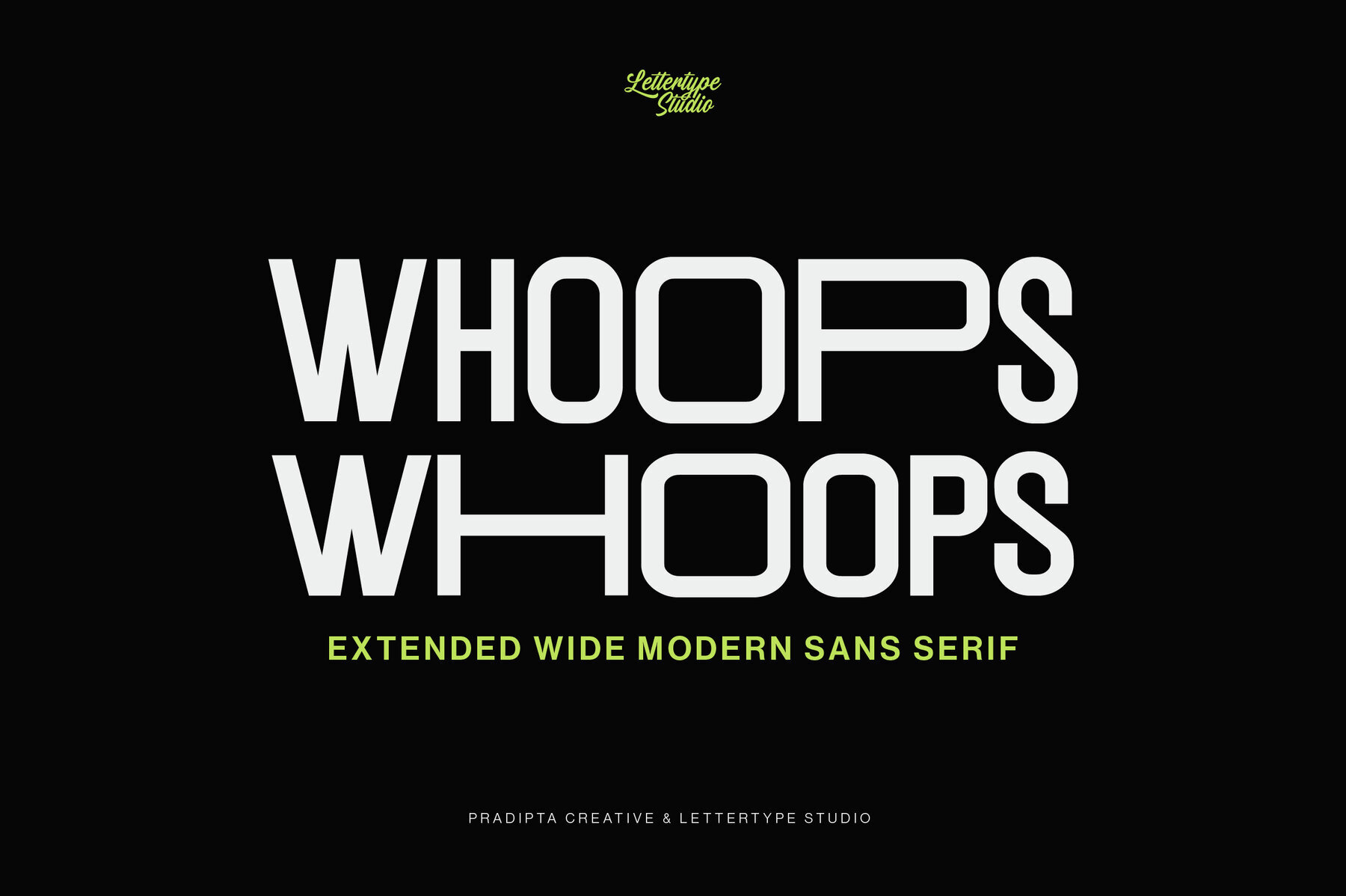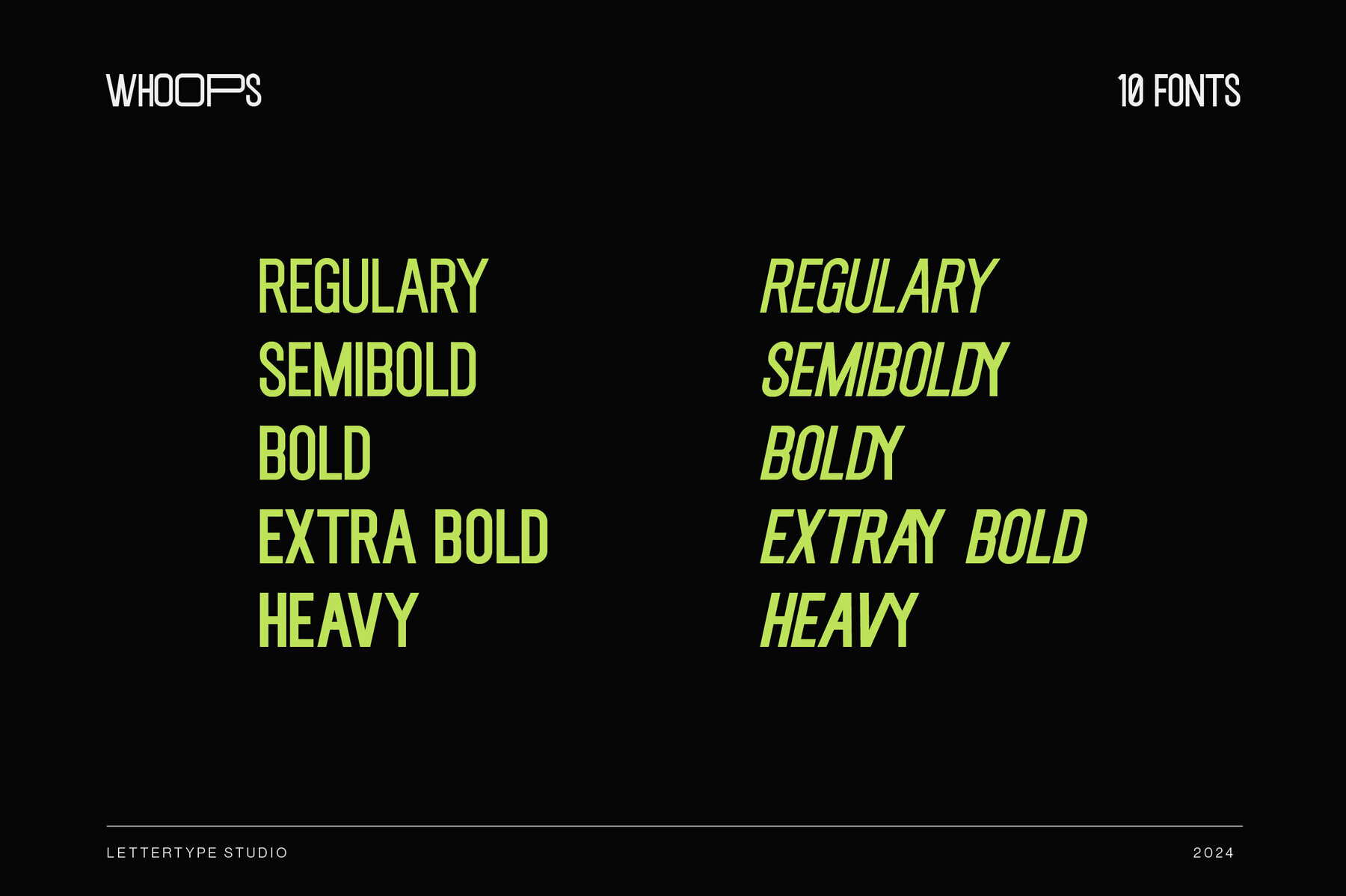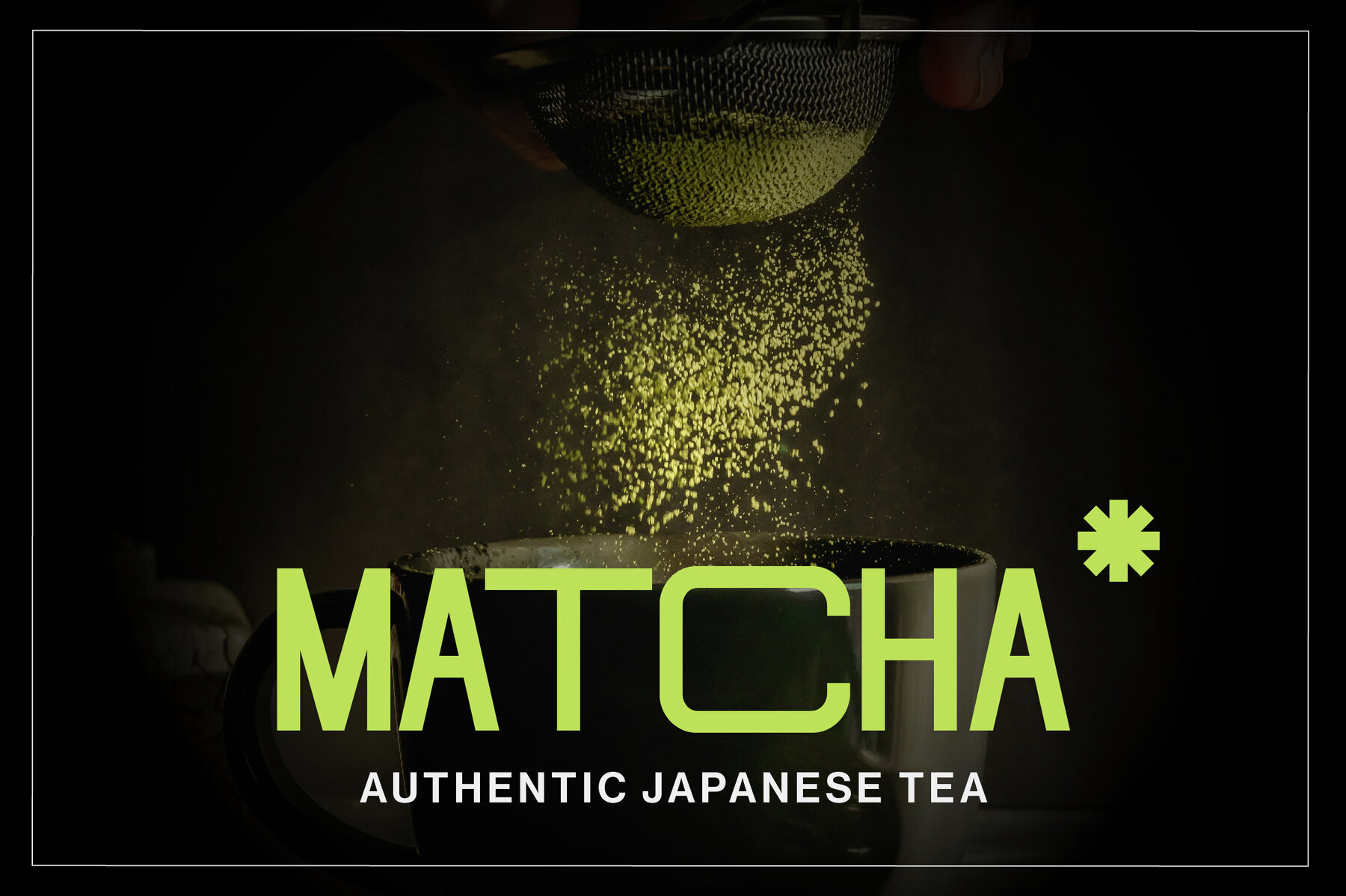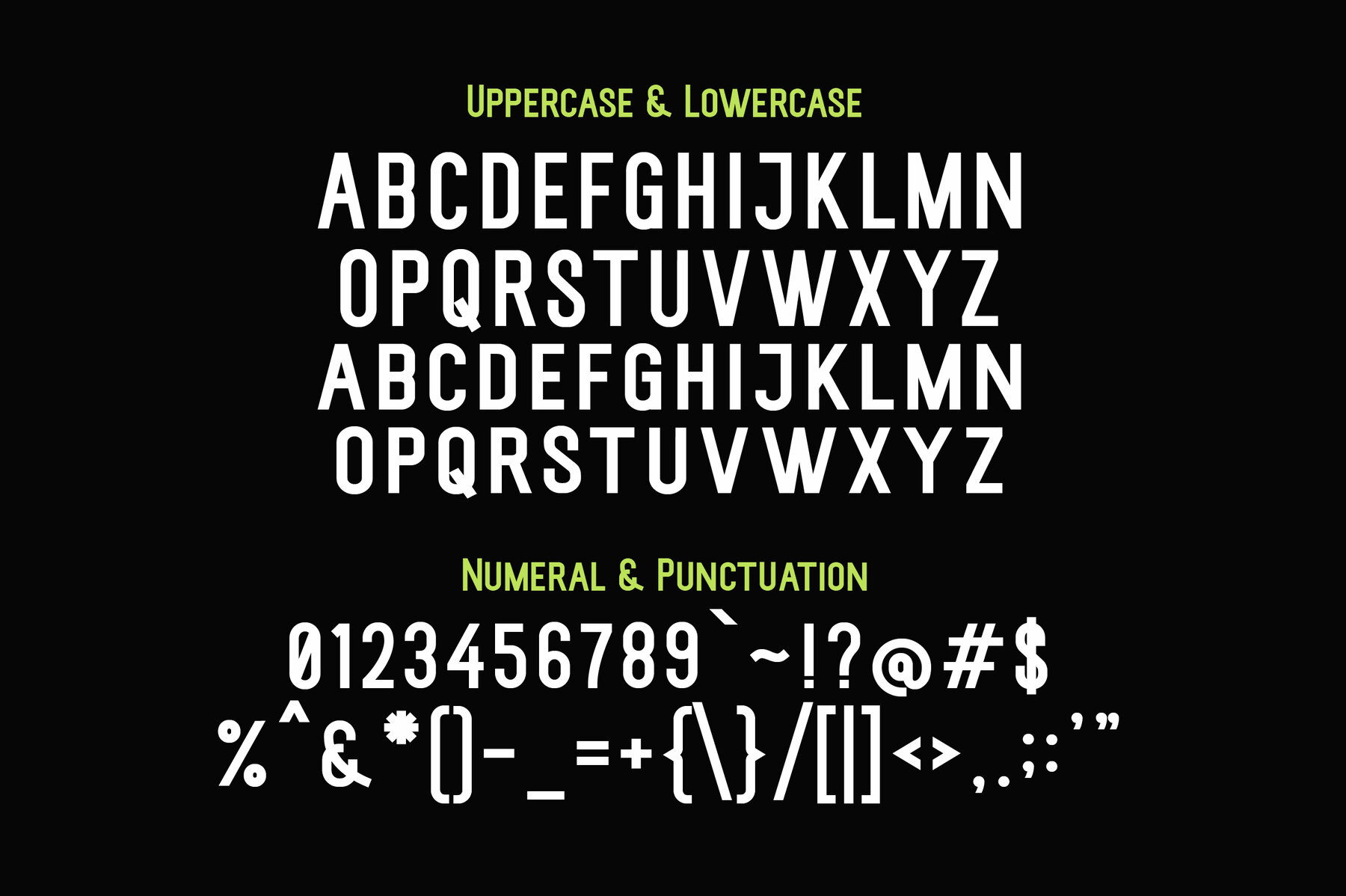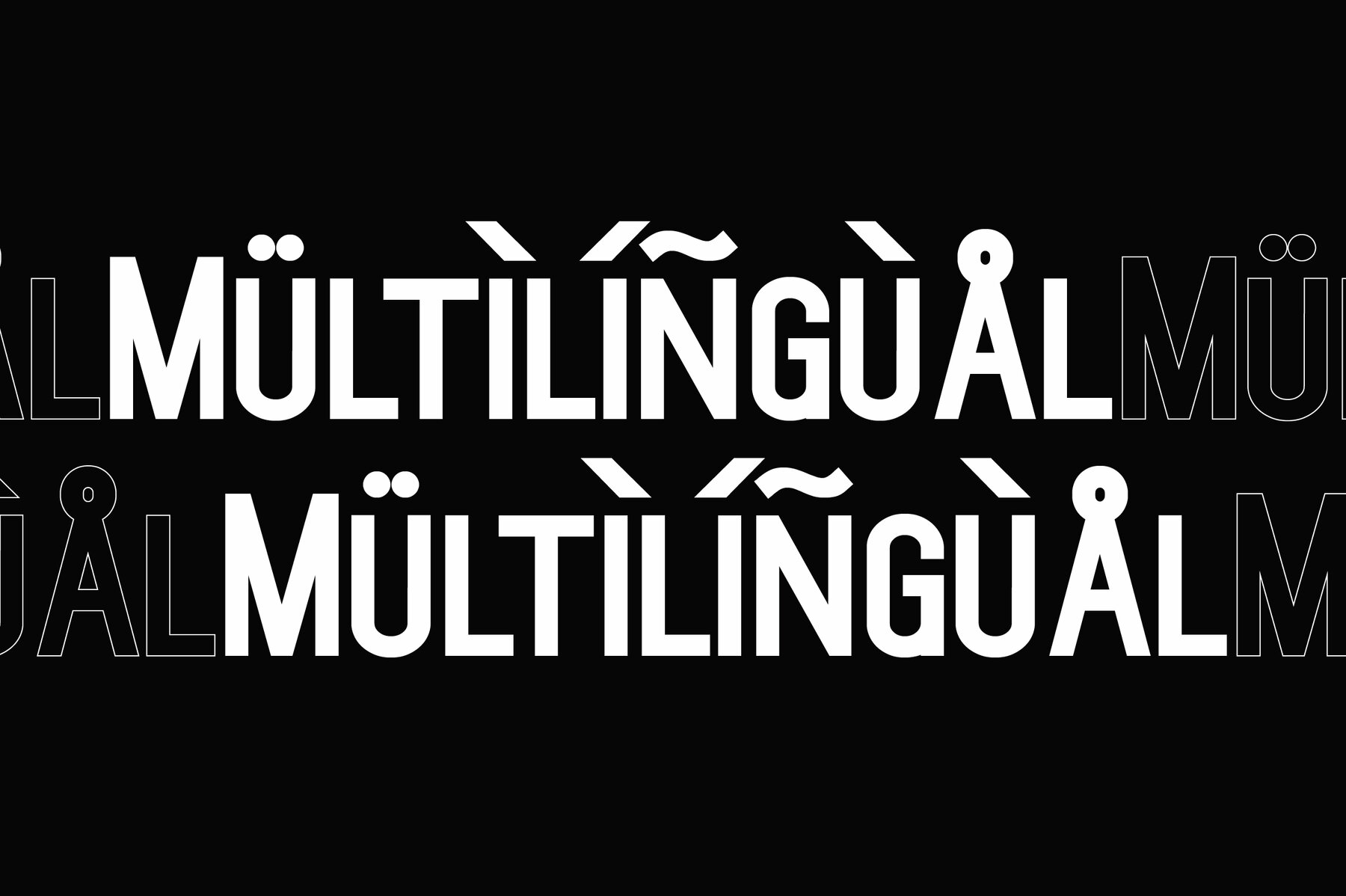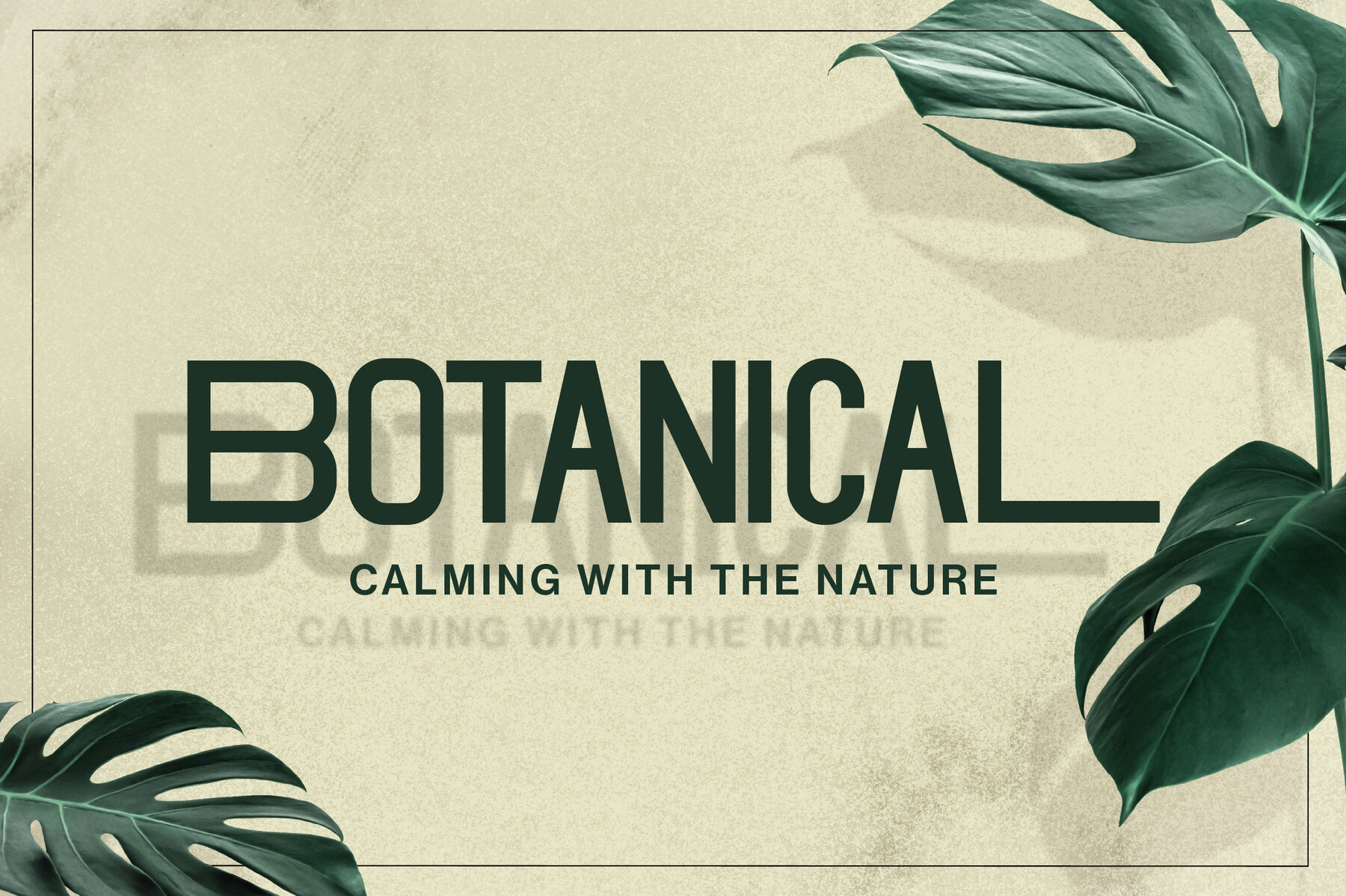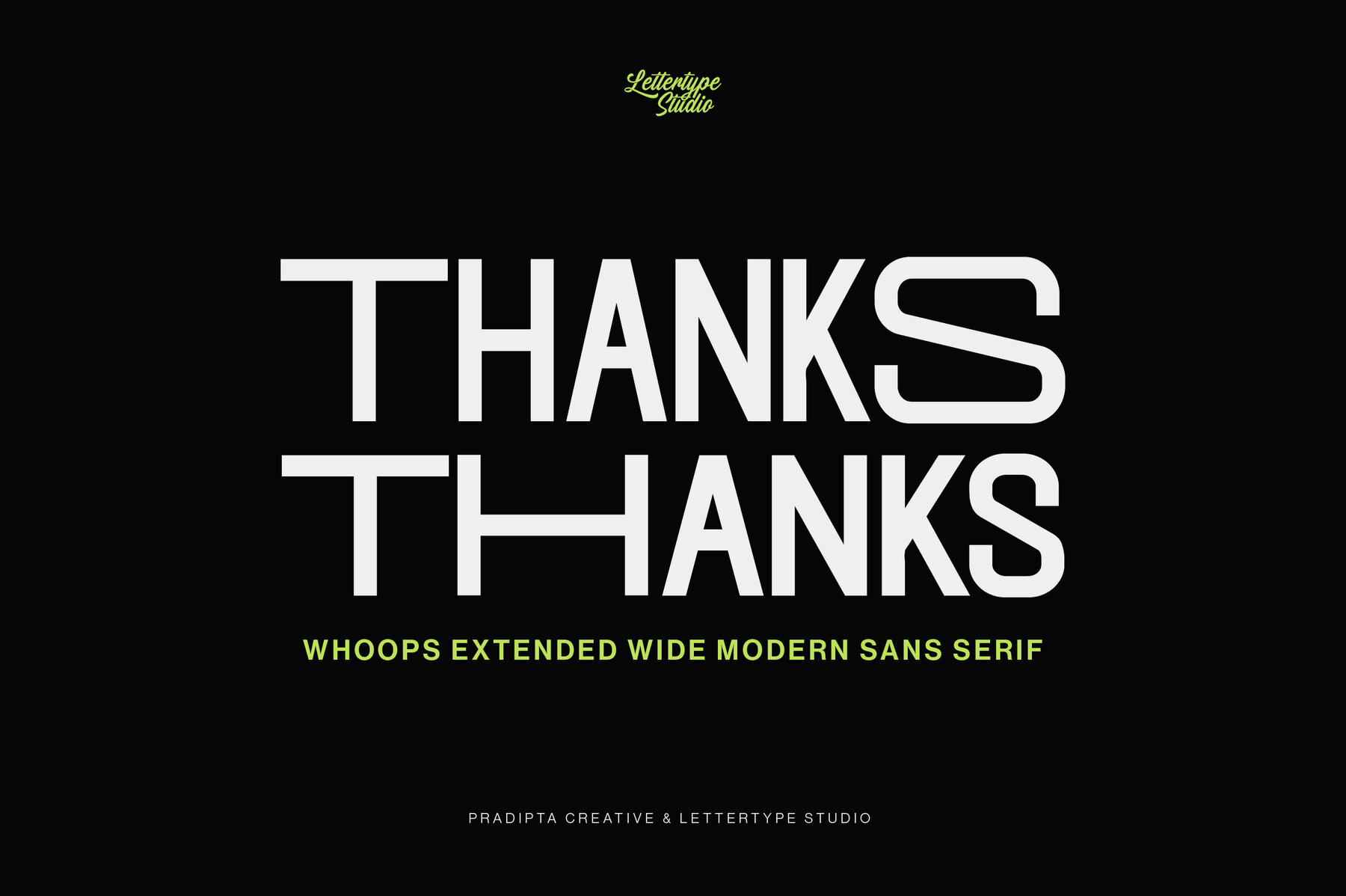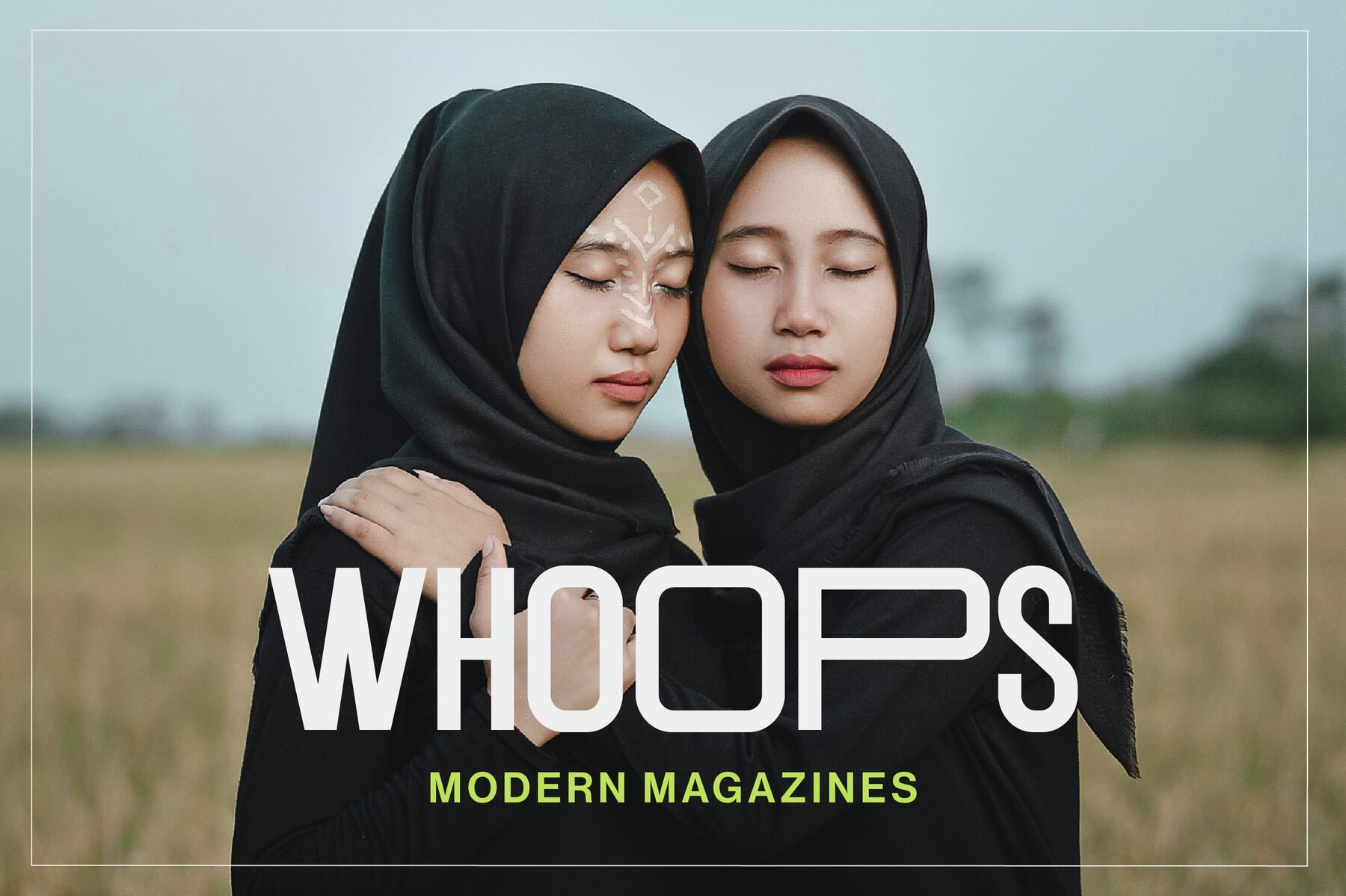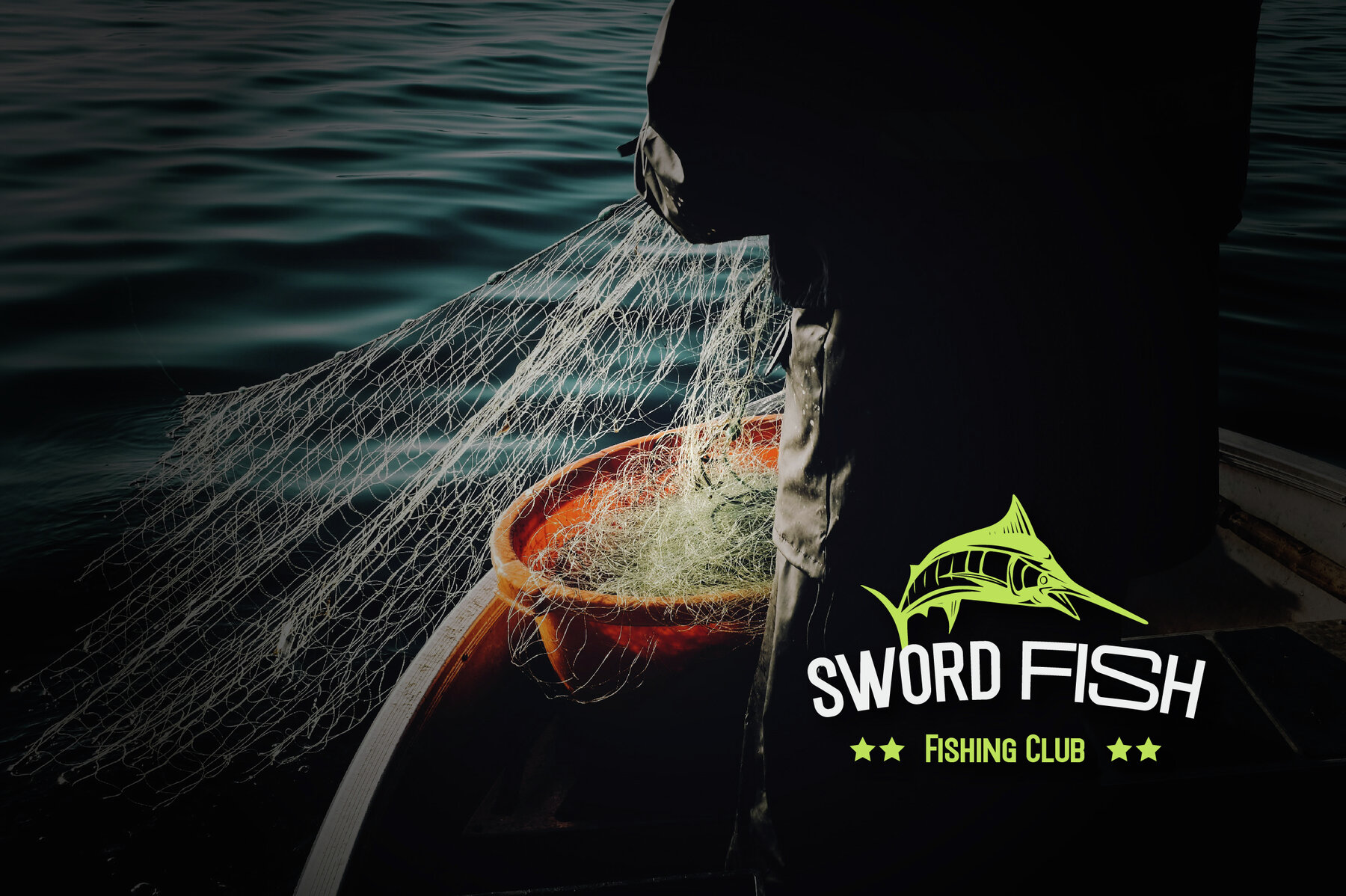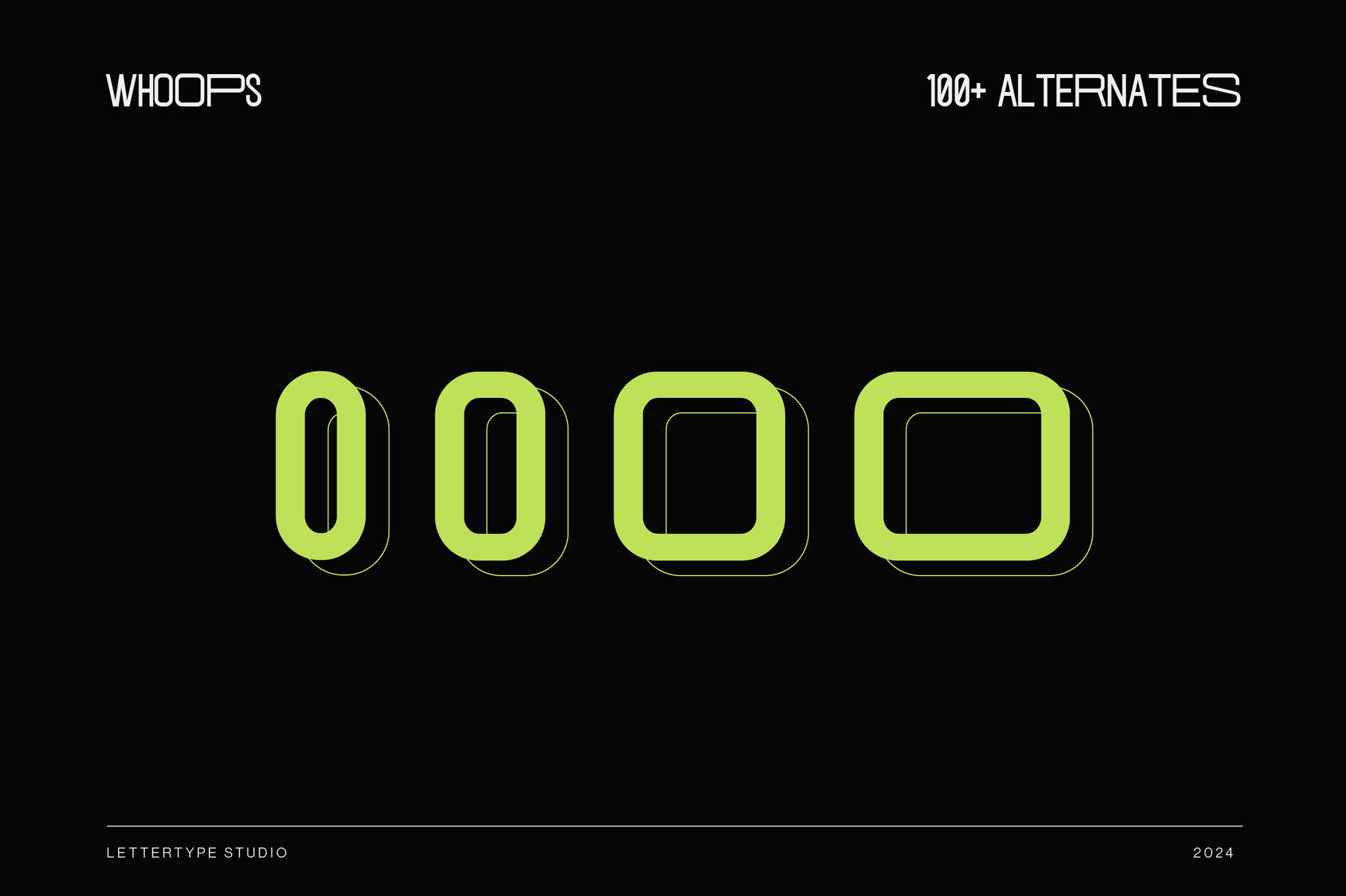
Whoops Extended Font
Whoops is a modern sans serif font, influenced by urban culture and discernible through its robust, unique characters. This extended wide typeface offers a vast range of artistic possibilities with over 100 alternate glyphs, allowing for boundless customization in your creative endeavors. Ideal for application in photography, social media graphics, advertisements, and branding, Whoops seamlessly integrates into your visual projects. Whether you are designing invitations, product packaging, or special event material, its versatility makes it a valued asset for any design project.Whoops: Urban Inspired Sans Serif Font